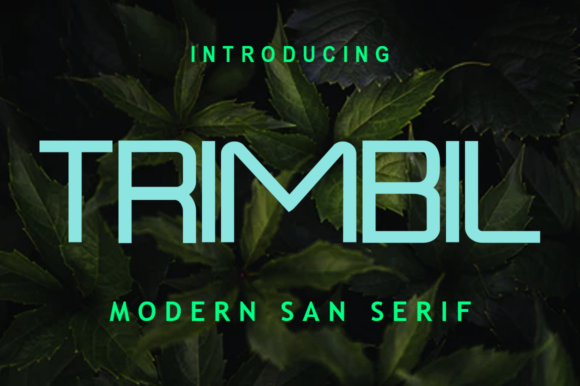
**Unleash the Power of Trimbil: The Cutting-Edge Font Revolutionizing Your Designs**
In a world where first impressions ignite connections and visuals captivate imaginations, typography reigns supreme. Introducing Trimbil – the sans-serif font that embodies innovation and redefines visual storytelling.
Trimbil is not merely a font; it's a gateway to extraordinary creations. Its sharp angles, sleek curves, and futuristic aesthetic inject an unparalleled freshness into your designs. Whether you seek to craft sleek logos, captivating website headers, or eye-catching social media posts, Trimbil empowers you to make an unforgettable mark.
Its versatility extends beyond aesthetics, as Trimbil seamlessly blends with a myriad of design styles. From minimalist masterpieces to edgy streetwear, Trimbil adapts effortlessly, adding a touch of modernity and sophistication to every project.
But Trimbil's allure goes beyond its visual appeal. It evokes emotions, speaks volumes, and has the uncanny ability to transform words into magnetic forces. Imagine your designs radiating confidence with its bold strokes or inviting exploration with its playful curves.
Join the typography revolution today and let Trimbil ignite your creativity. As a modern-day masterpiece crafted by the renowned Gatra Std., Trimbil is more than just a font – it's an investment in your design arsenal, unlocking endless possibilities for captivating creations.